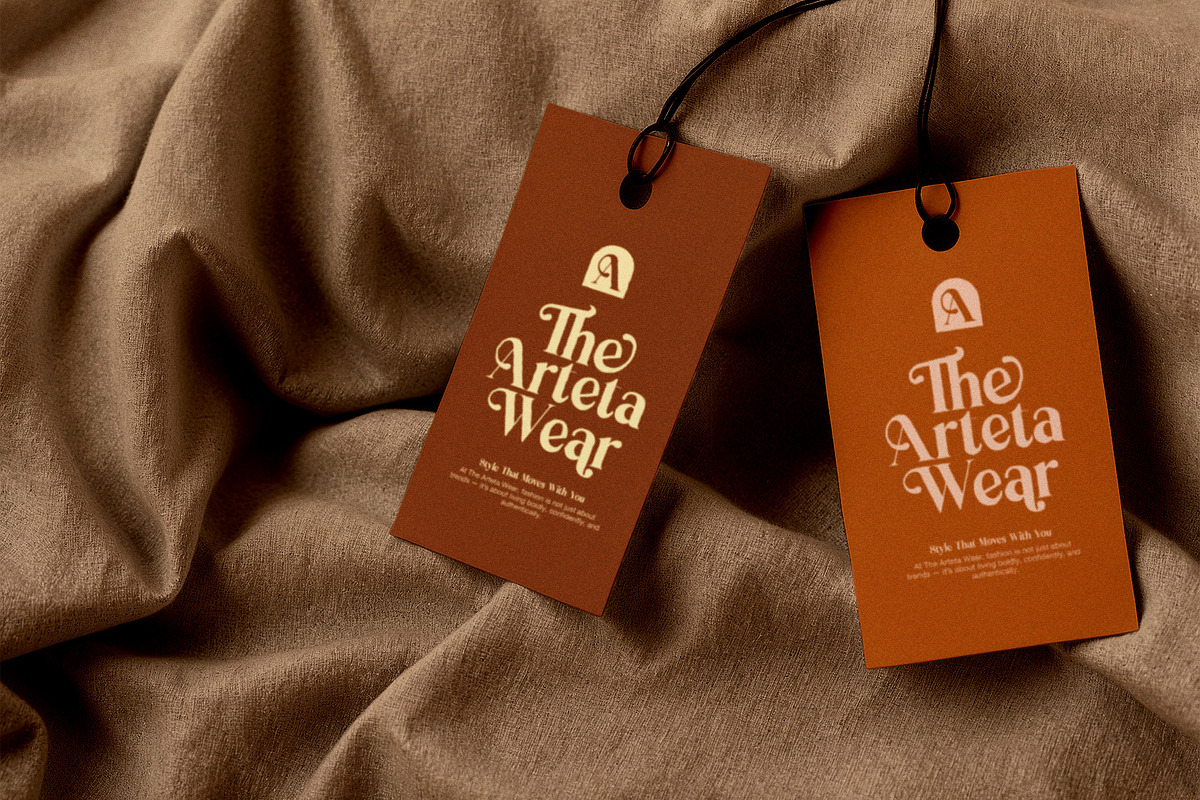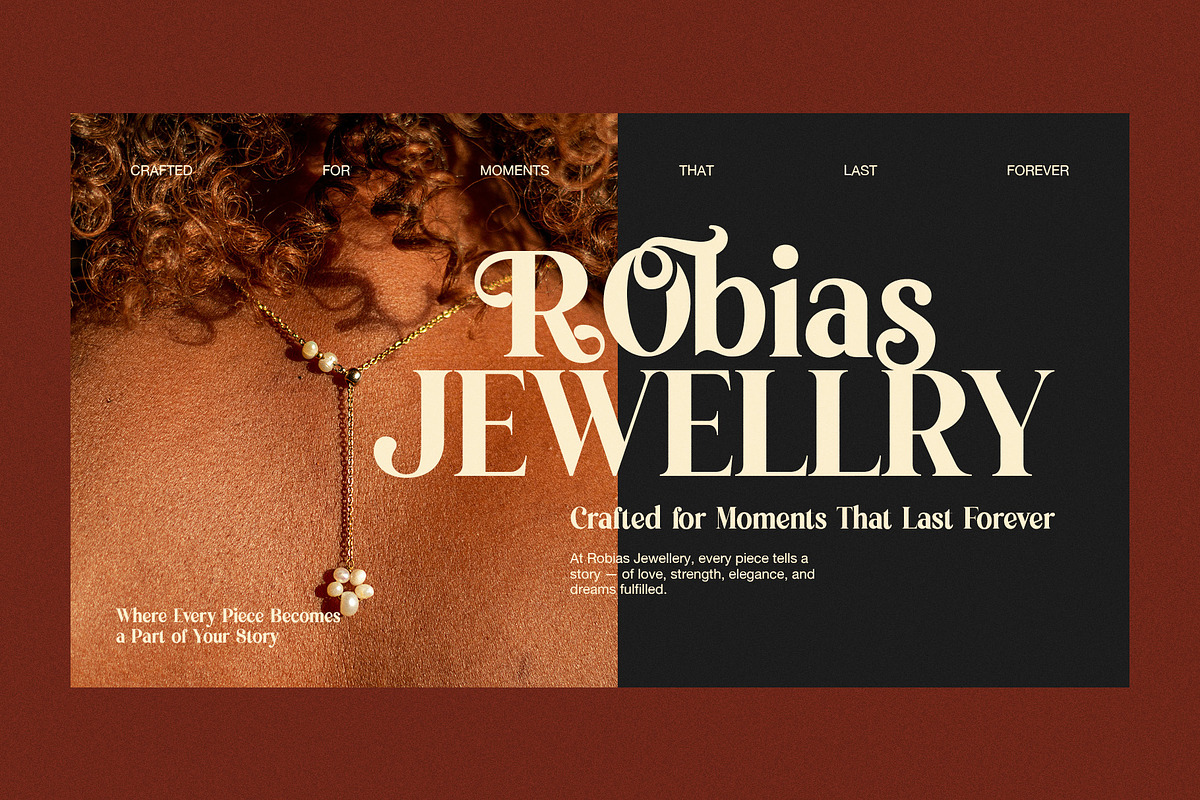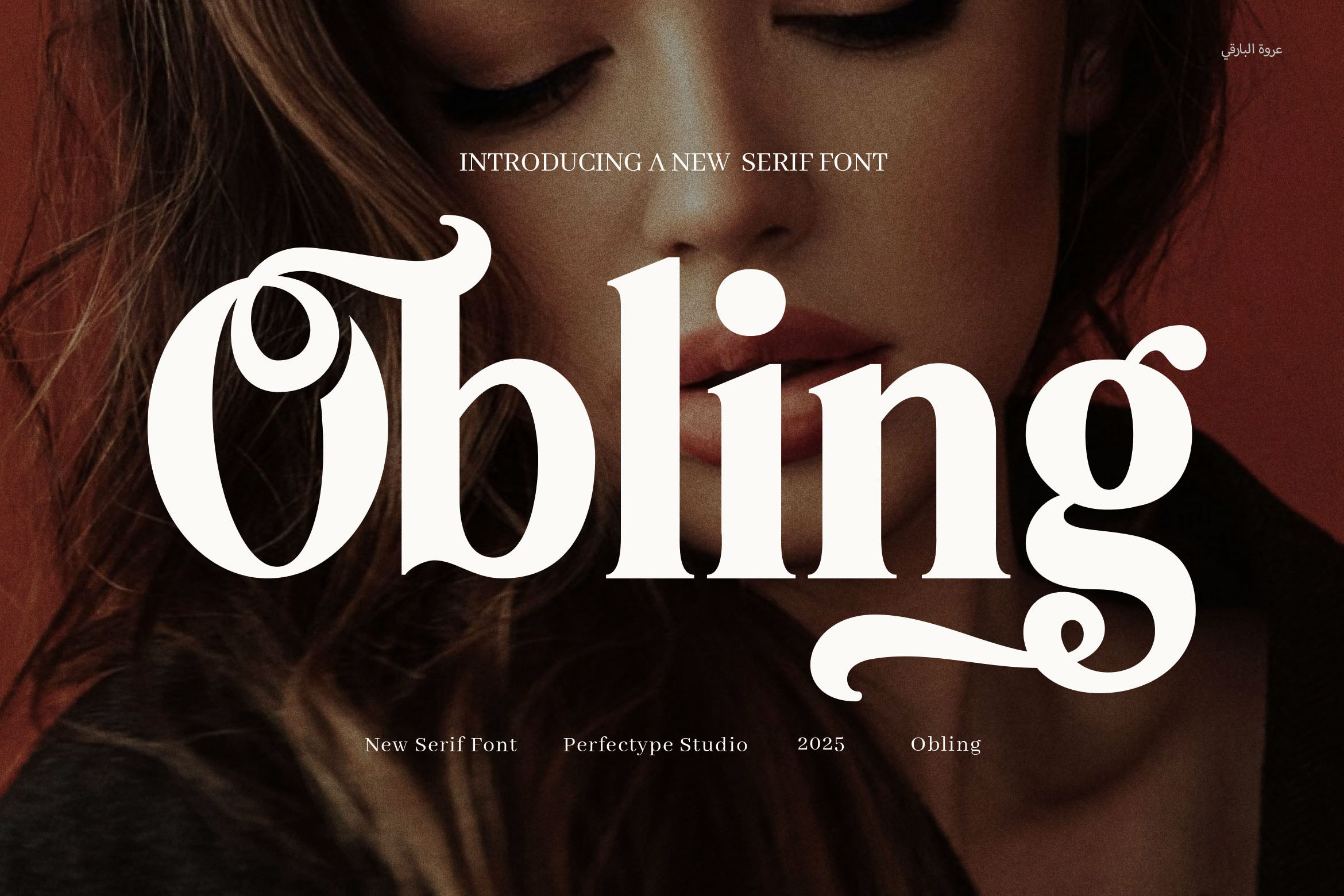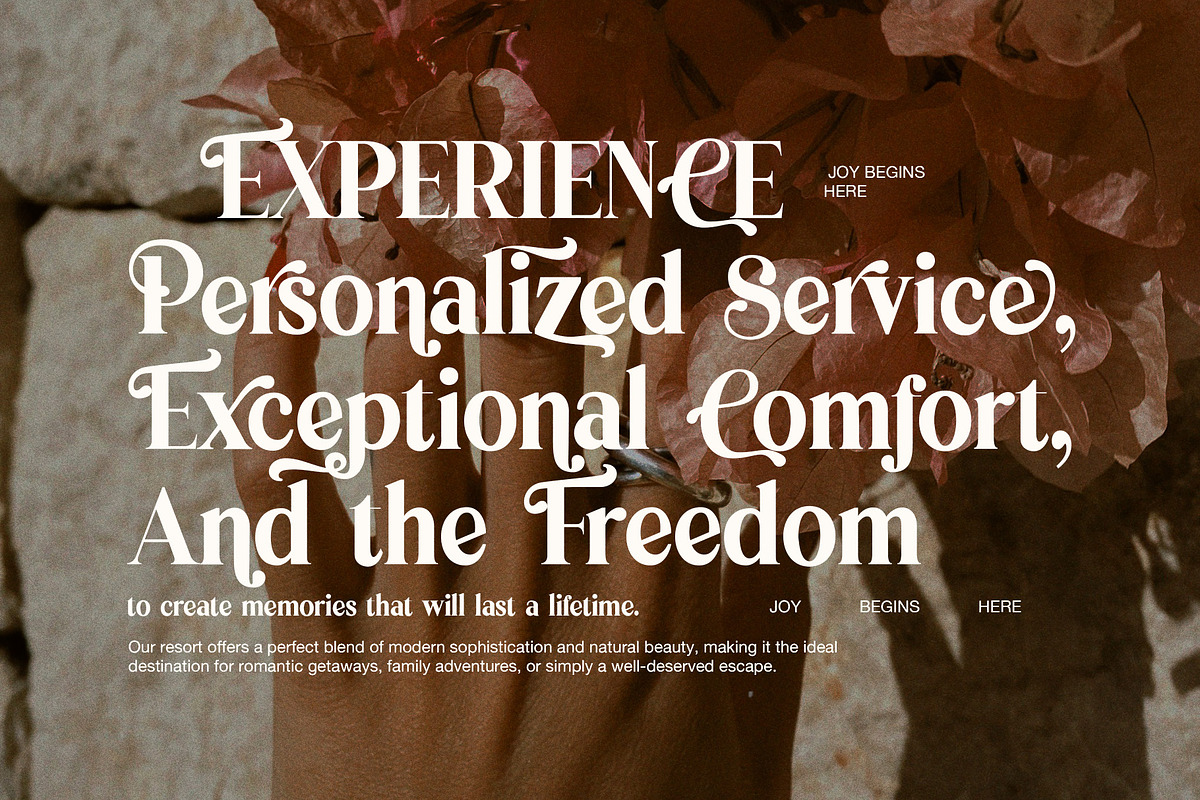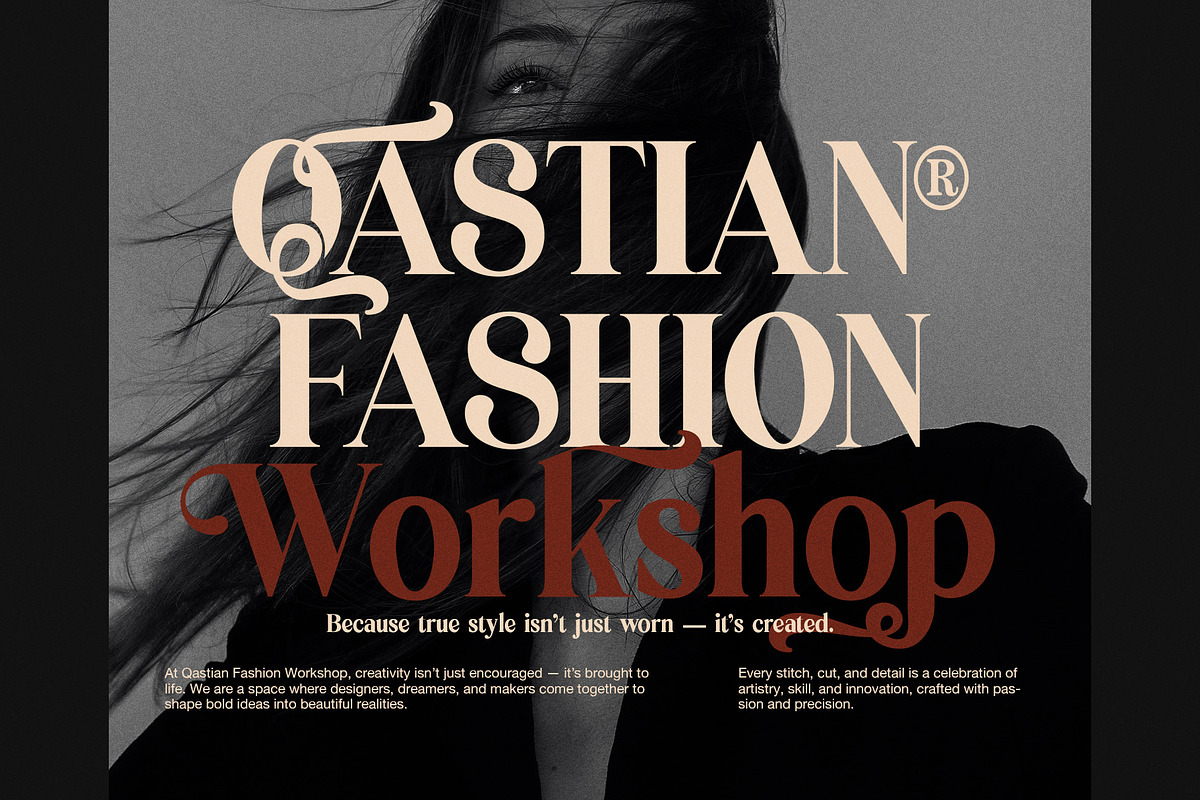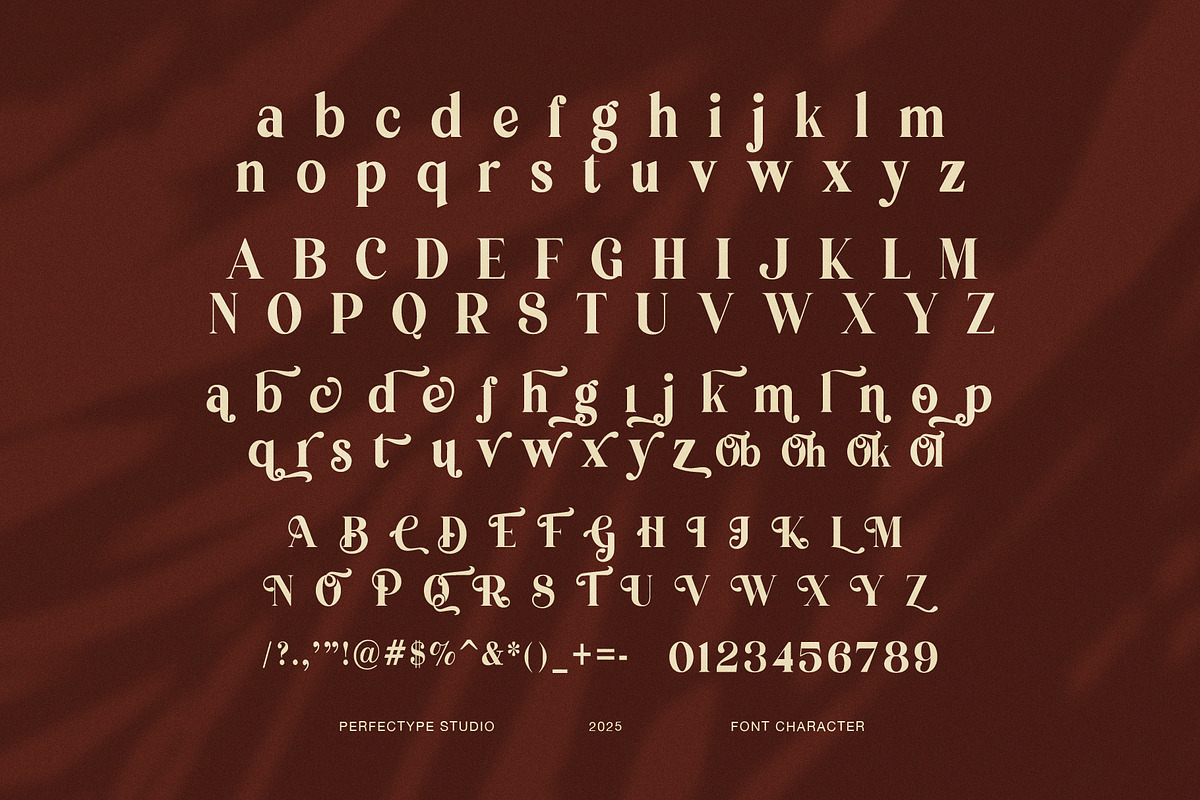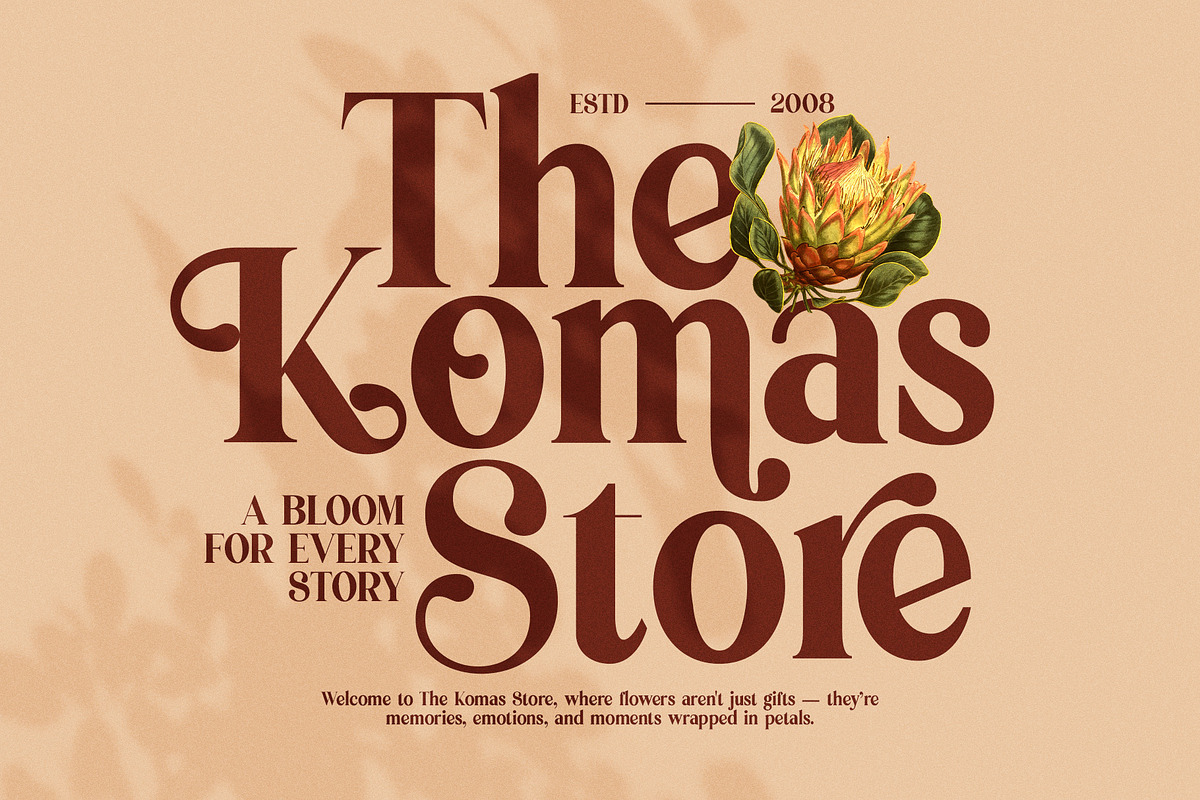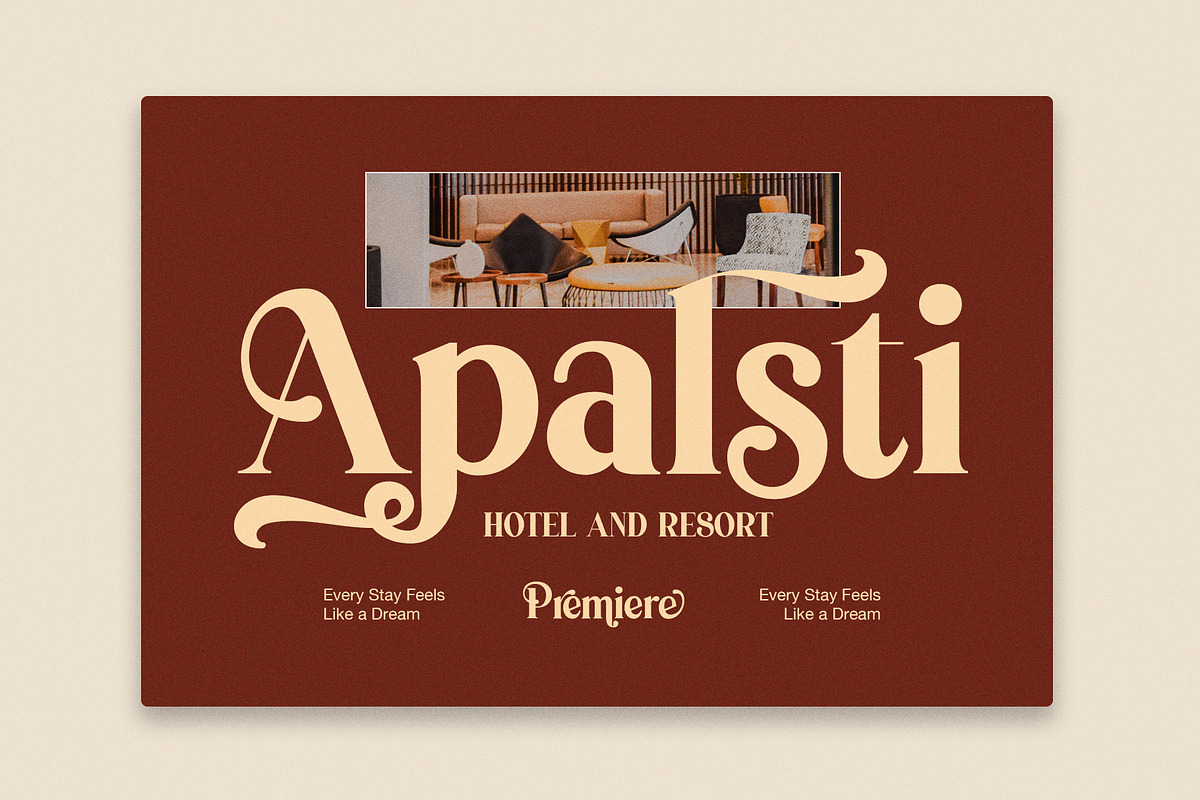
Obling Elegant Serif Font
Obling Elegant Serif Font is a sophisticated and contemporary serif typeface designed to bring a refined, stylish edge to any creative project. Featuring graceful ligatures and artistic alternate forms, Obling offers a rich typographic experience that feels both timeless and modern—perfect for making your designs stand out with confidence and class.
Every letter in Obling is meticulously crafted, combining classic serif elegance with modern design sensibilities. The font’s distinctive ligatures add a sense of flow and personality, while the alternates provide flexibility to create custom-looking typography without the need for complex design work. Whether used for bold headlines or delicate branding, Obling commands attention with its sculpted form and effortless grace.
Ideal for logos, fashion branding, editorial layouts, website headers, and upscale product packaging, Obling is a go-to choice for designers who demand sophistication without sacrificing creativity. Its clean lines and refined curves make it especially suitable for luxury labels, boutique businesses, and high-end marketing materials.
Obling’s character set allows for seamless visual storytelling across various platforms, from stylish magazine spreads to elegant social media graphics. The versatility of this serif font ensures it shines in both digital and print settings, bringing a professional and elevated tone to any layout or brand identity.
What sets Obling apart is its ability to blend tradition with innovation. It draws on the enduring beauty of serif typography while embracing modern trends, making it a valuable asset for creatives working across fashion, beauty, lifestyle, and premium